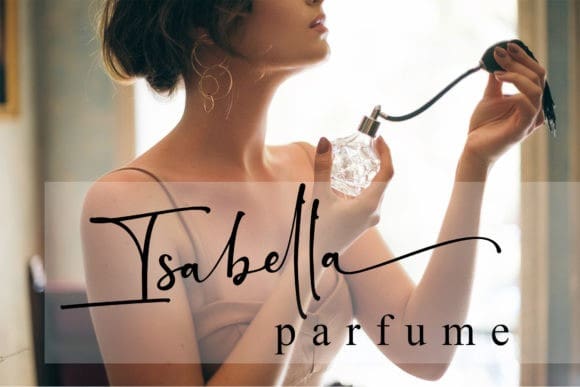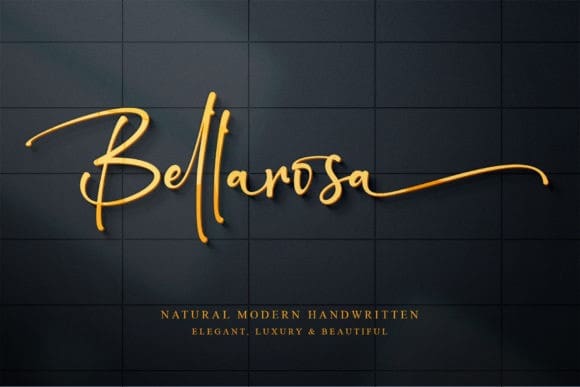
Bellarosa Script Font
Bellarosa Script Font is a sweet and delicate handwritten font. Dainty and joyful, this font will be ideal for writing wedding invitations, cards or any other design that may need a personalized touch!